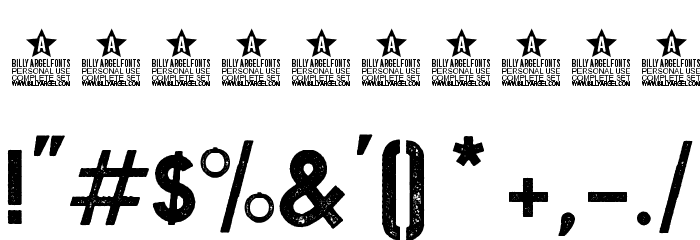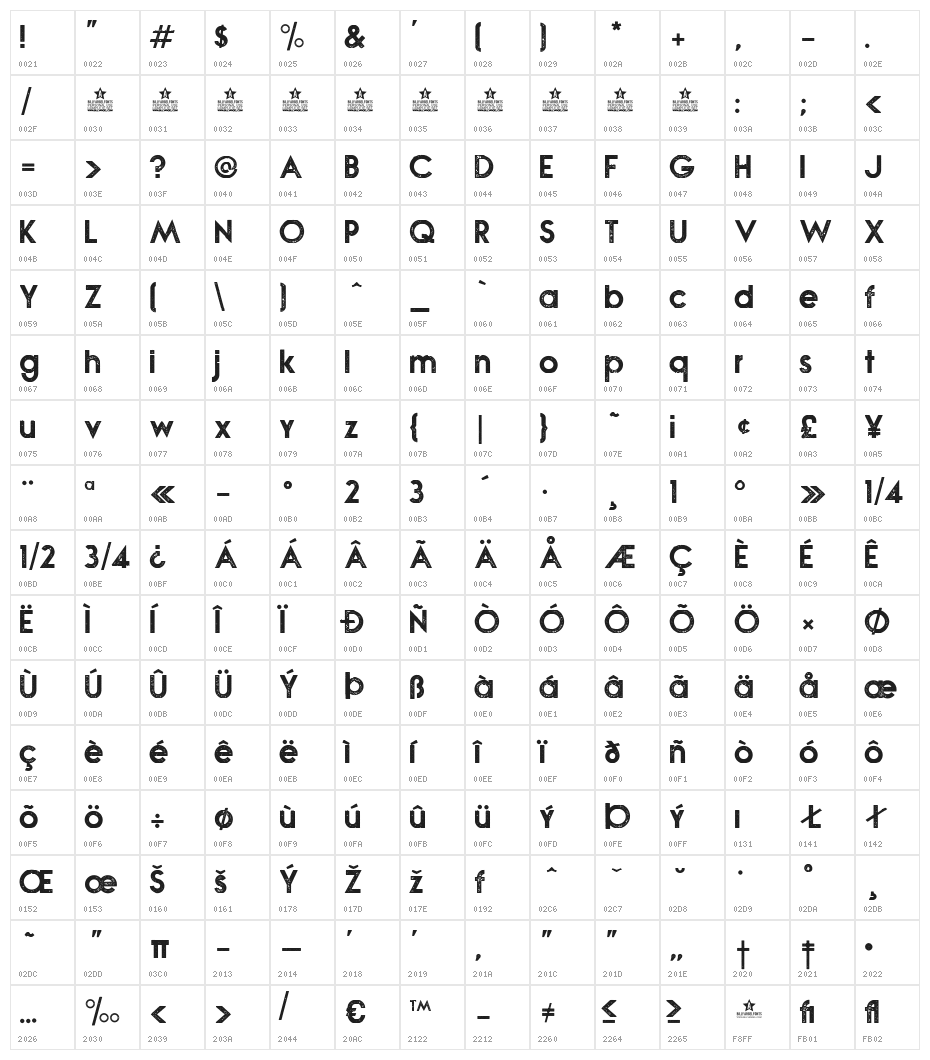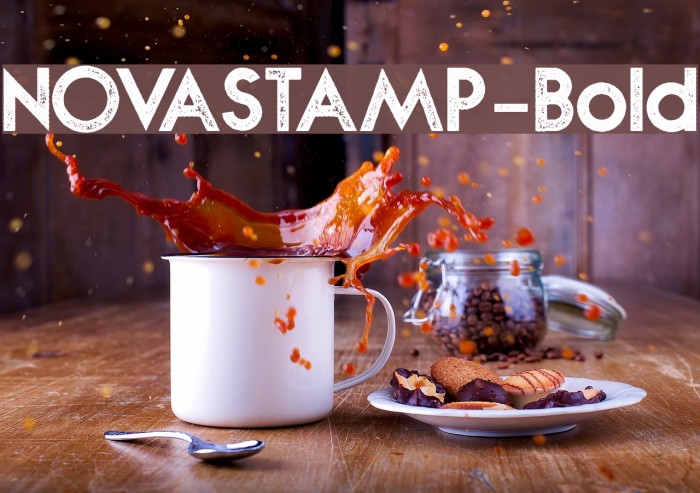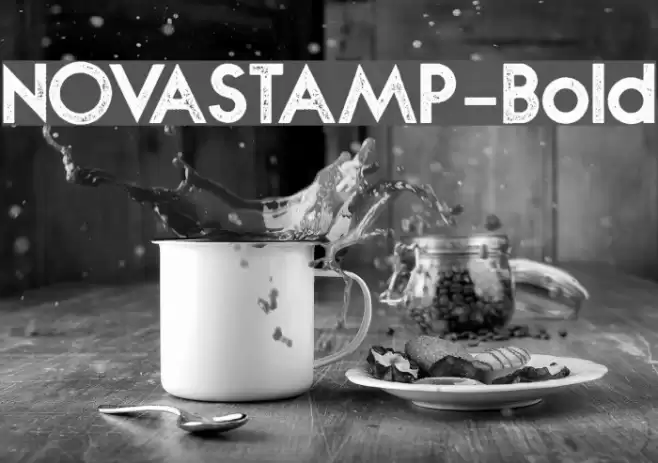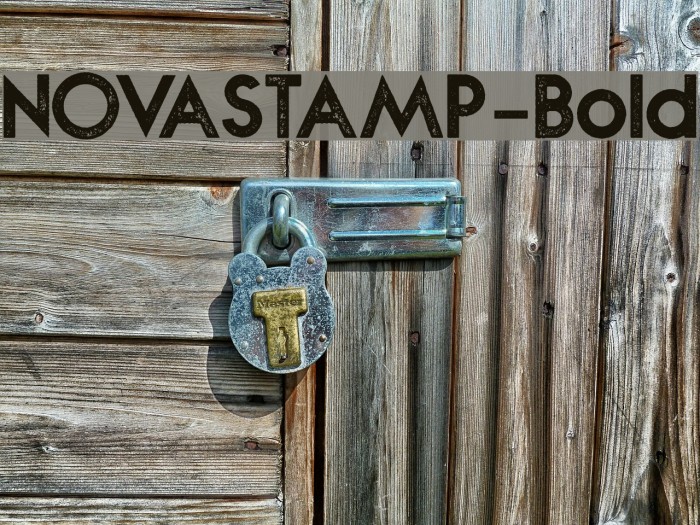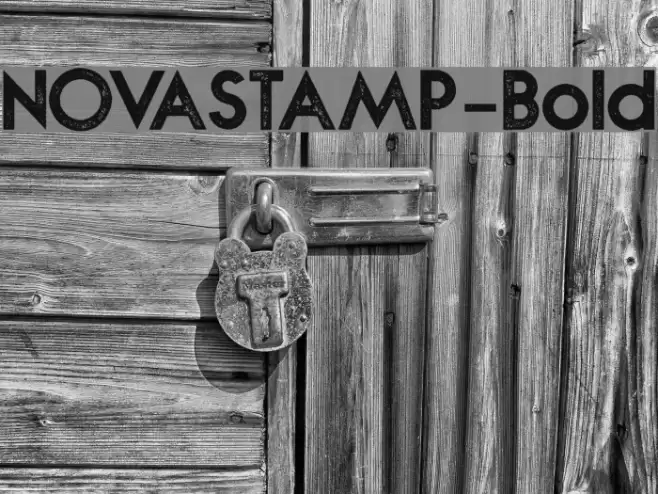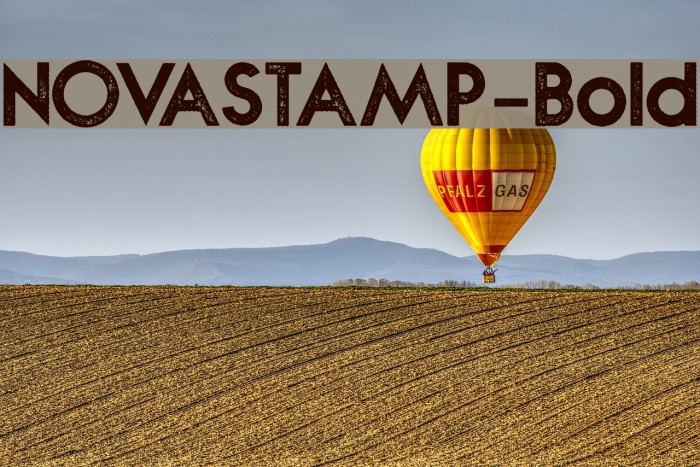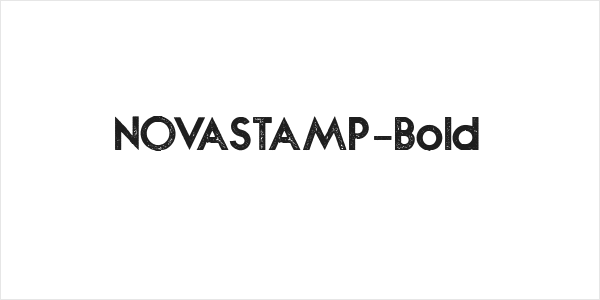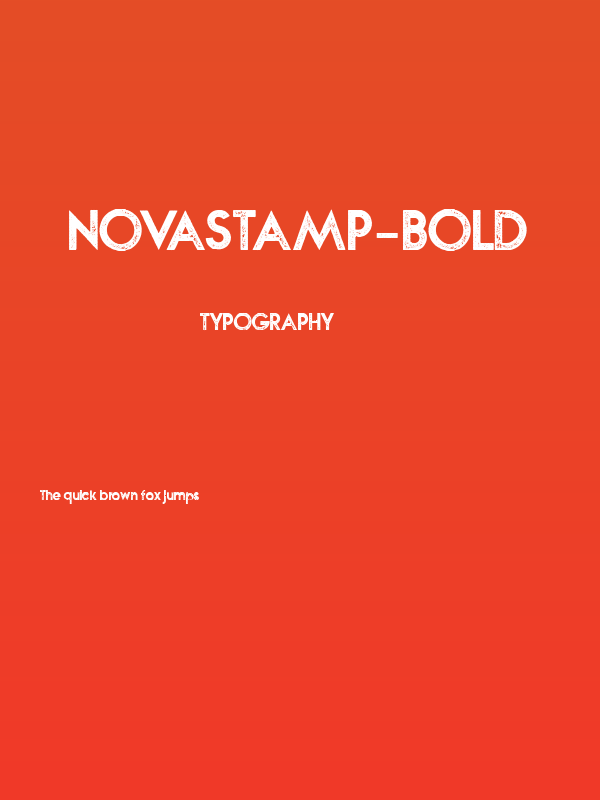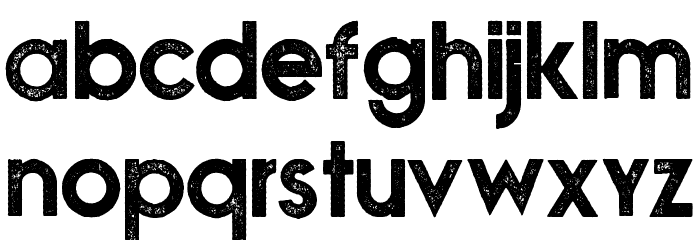
NOVASTAMP-Bold Font
NOVASTAMP-Bold Description
This font features a bold, distressed style with a textured appearance that mimics the look of a stamped or printed design. The uppercase and lowercase letters maintain a consistent weight, providing a strong visual impact. The characters are well-defined, with a slightly rough edge that adds to the vintage and industrial feel. The numerals and special characters follow the same design principles, ensuring uniformity across all glyphs. This font is ideal for projects that require a rugged, authentic look, such as posters, branding, and packaging.
| Proposed Projects | Ideal for posters, branding, packaging, and any project needing a rugged, vintage look. |